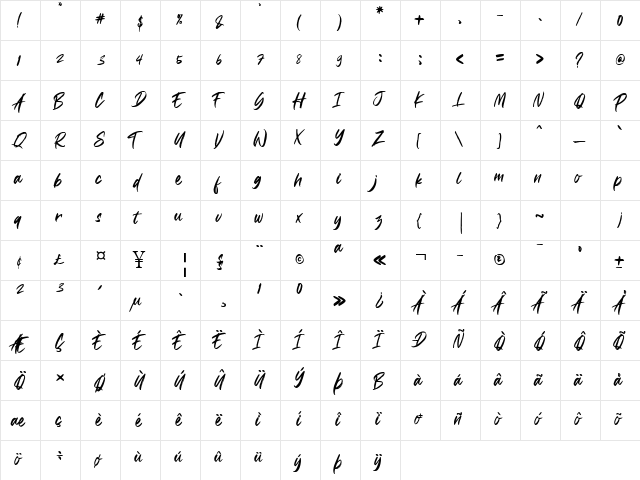
Padrox Regular
| Designer | Heru Utama Putra |
Design Context for Padrox Typeface
Padrox is a composed and adaptable typeface that performs quietly and consistently across a wide range of design contexts.